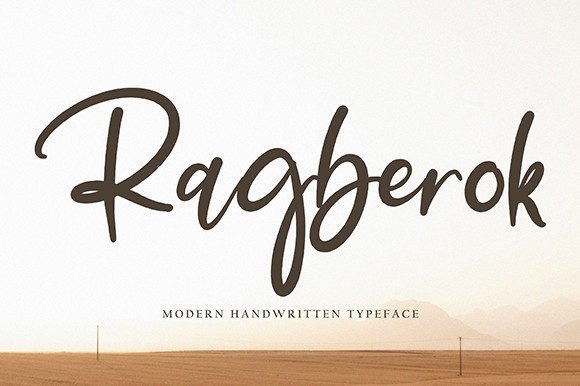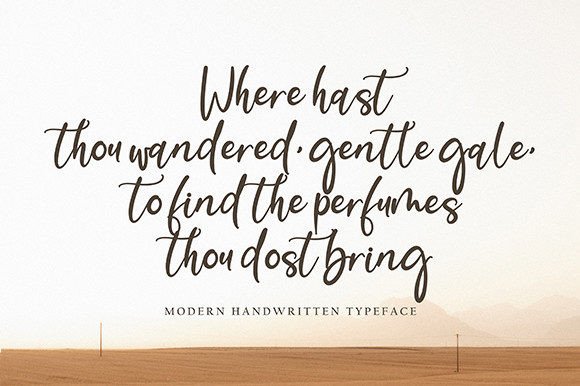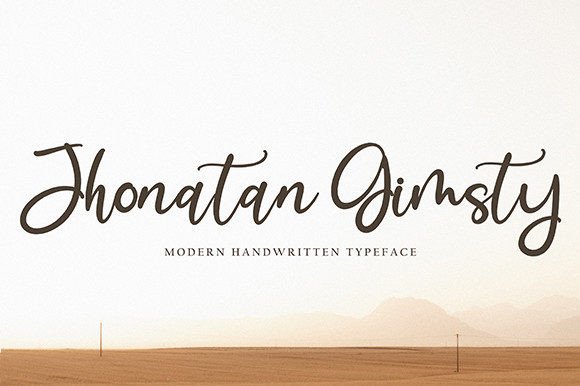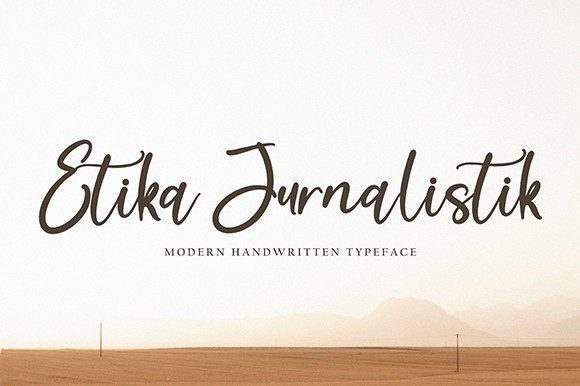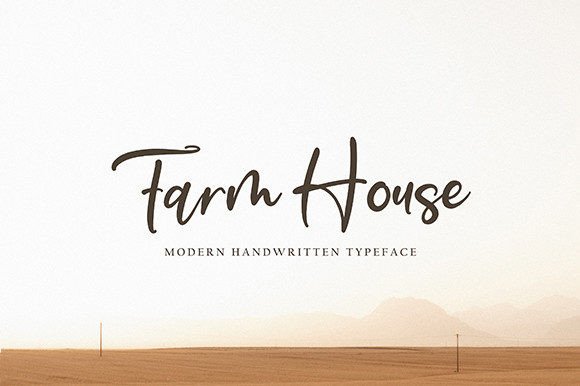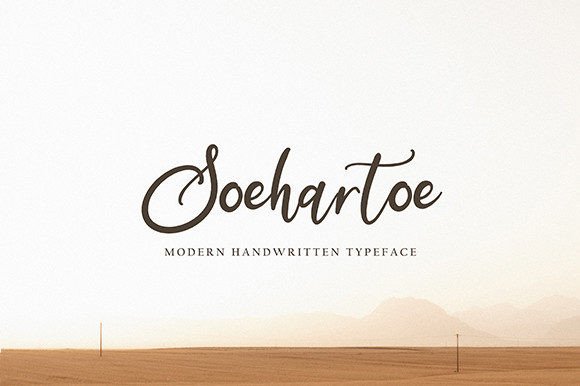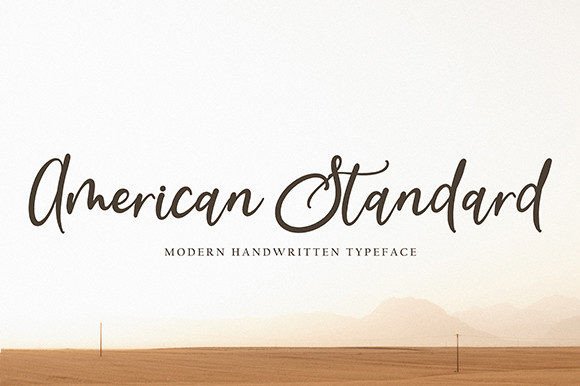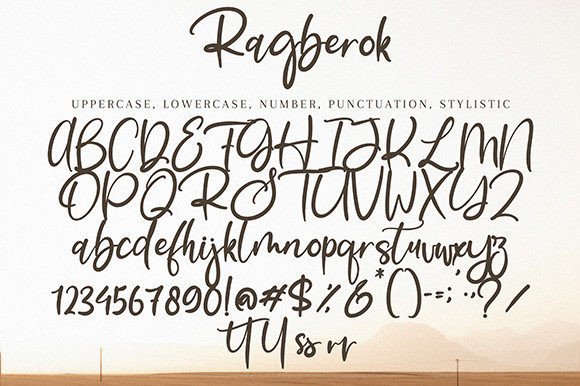
Ragberok Font
Elevate Your Designs with the Elegant Ragberok Font
Ragberok Font is a sophisticated handwritten script that blends charm with elegance. With graceful curves and refined strokes, it brings a warm and personal touch to any creative project. This font is especially suitable for romantic and professional design themes.
Perfect for Weddings, Branding, and More
Whether you’re creating wedding invitations, thank you cards, or logo designs, Ragberok Font enhances your layout with effortless beauty. Its hand-lettered aesthetic ensures your project looks heartfelt and polished at the same time. It’s also a go-to choice for:
• Greeting cards and personal notes
• Inspirational quotes for social media
• Event signage and stationery
• Business cards and product labels
This font adapts well to both formal and casual contexts, giving you the flexibility to use it in a wide range of design applications.
Designed for Visual Harmony
Ragberok Font strikes the perfect balance between thin and thick strokes. Its characters are well-proportioned, maintaining legibility without sacrificing style. The consistent rhythm of its letterforms ensures that your text flows naturally, whether you’re writing a short phrase or a long sentence.
Thanks to its clean yet decorative lines, Ragberok doesn’t overpower your design. Instead, it enhances the message with elegance and a personal feel.
If you’re searching for a handwritten font that radiates charm and professionalism, Ragberok Font is the perfect match. Its versatility makes it ideal for:
• Elegant branding projects
• Romantic stationery or cards
• Stylish quotes and content for Instagram or Pinterest
• Unique packaging that tells a story